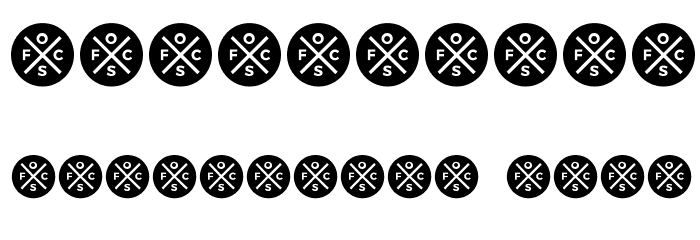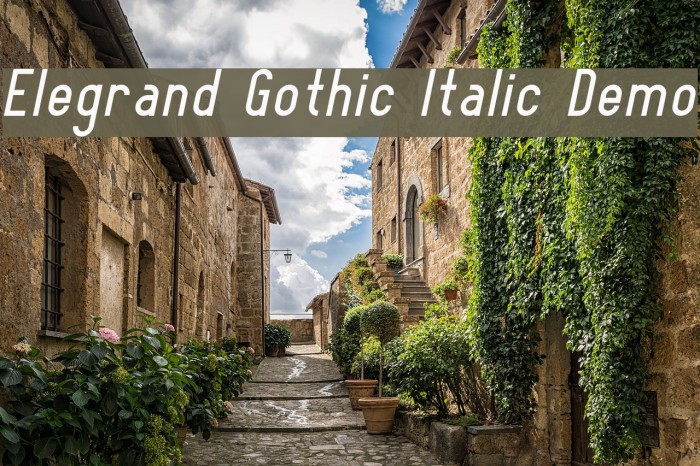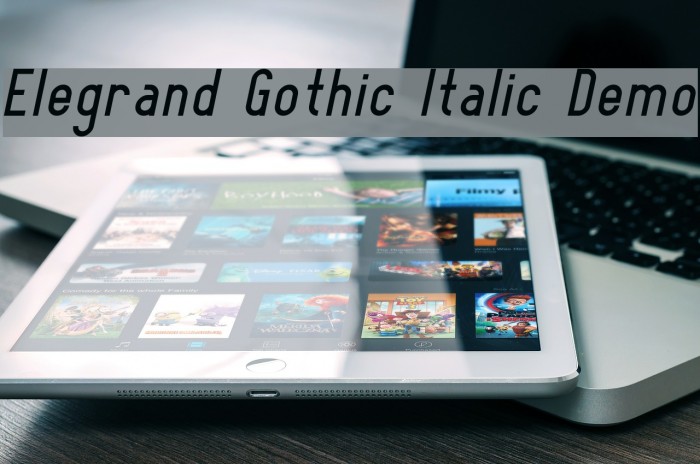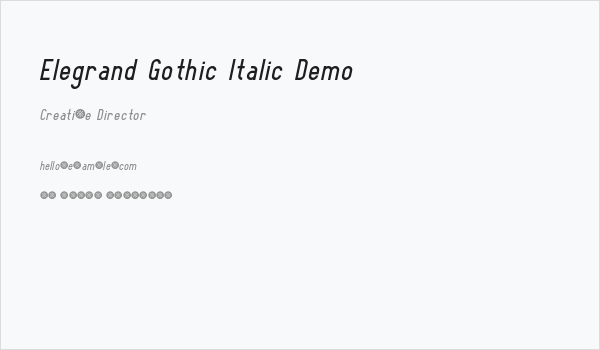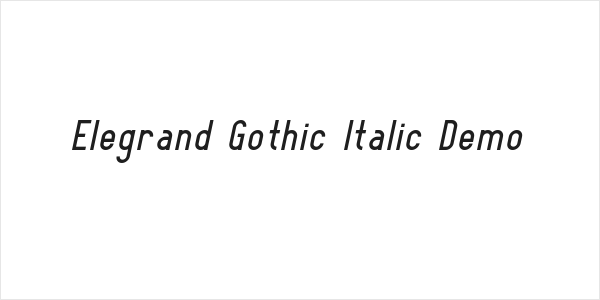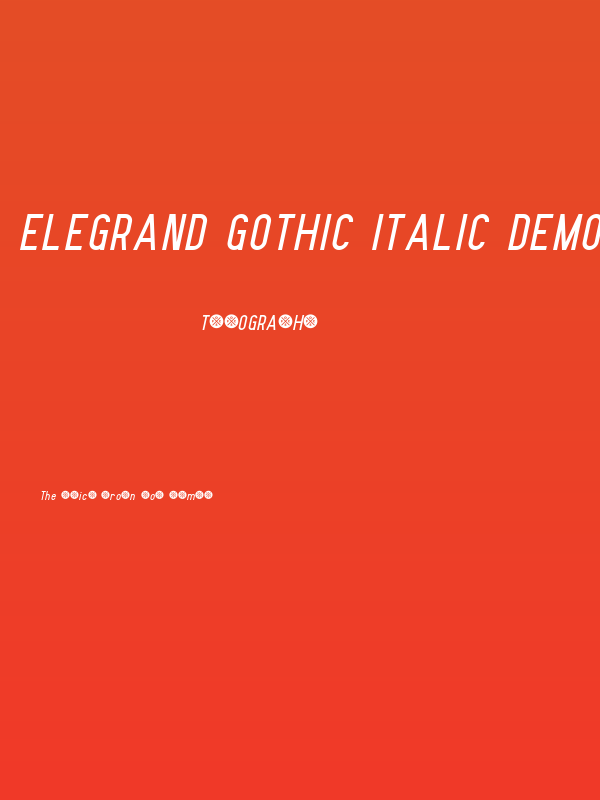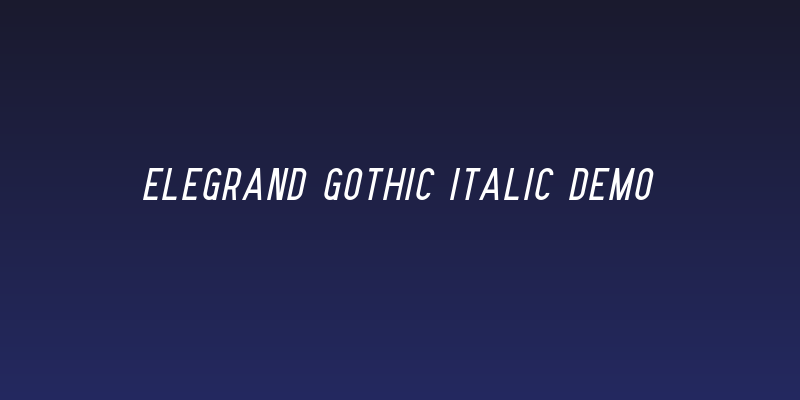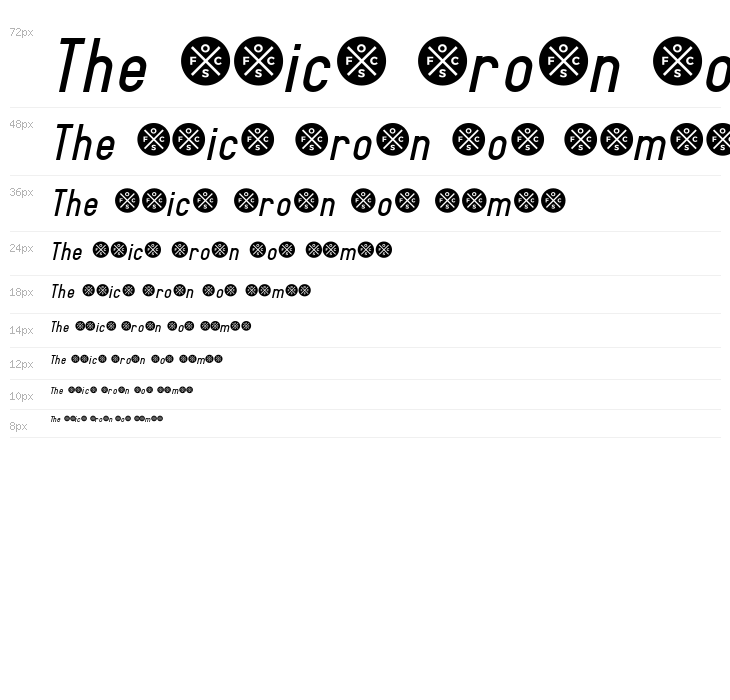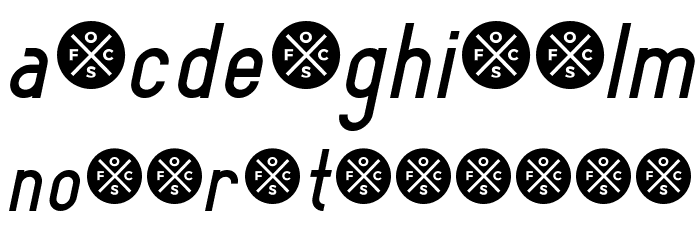
Elegrand Gothic Italic Demo Font
Elegrand Gothic Italic Demo Description
This font features a modern and sleek design with a distinct italic slant, giving it a dynamic and forward-moving appearance. The characters are clean and sans-serif, providing a contemporary look that is both stylish and readable. The uppercase and lowercase letters maintain a consistent style, with smooth curves and sharp angles that enhance its modern aesthetic. The numerals are clear and easy to distinguish, making them suitable for various applications. Special characters are included, adding versatility to the font's use. Overall, this font is ideal for projects that require a modern and sophisticated touch.
| Use Case | Headlines, Logos, Digital Media |
| Proposed Projects | Ideal for branding, advertising, digital media, and editorial design projects. |